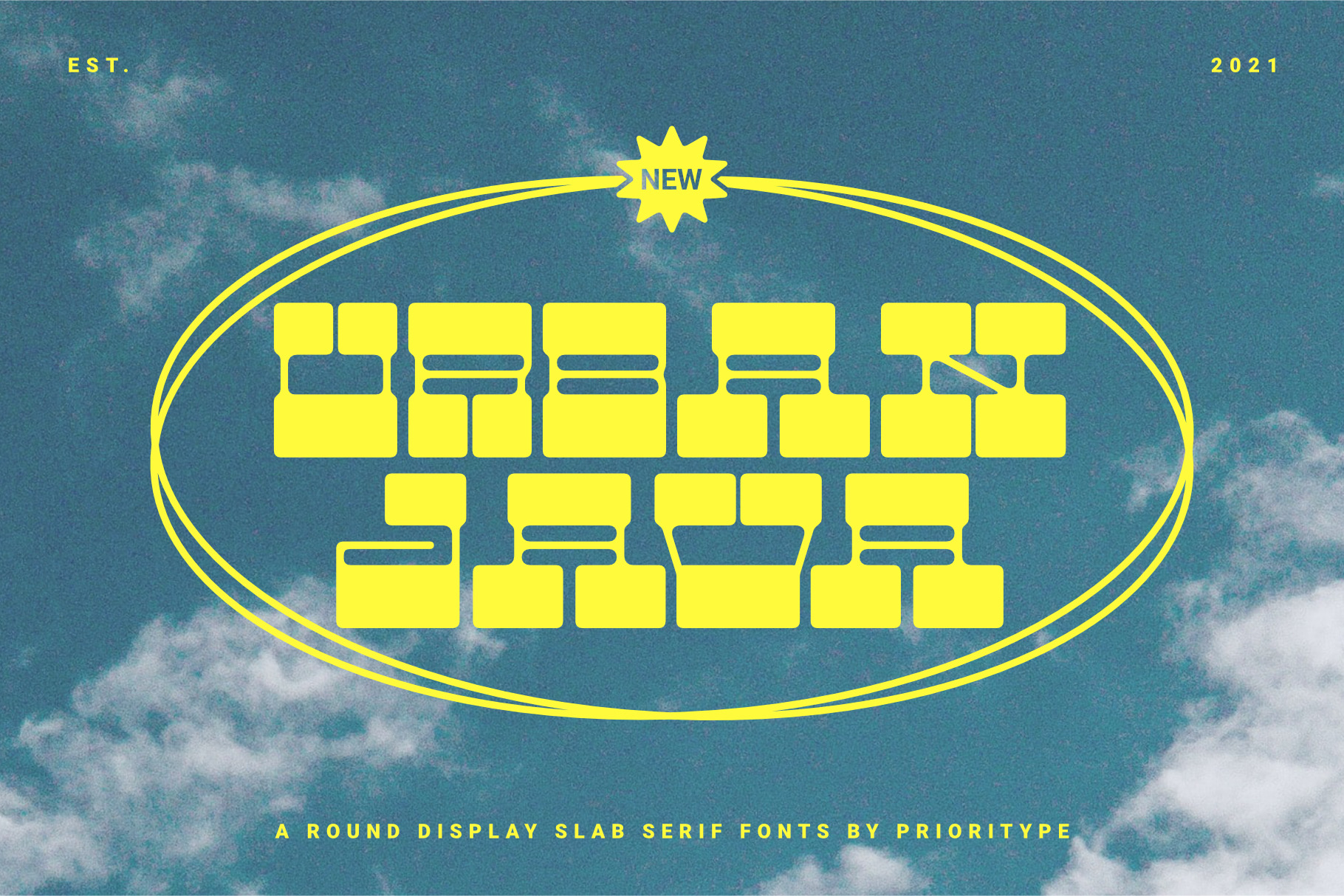
Urban Java Font
Urban Java - A Round Display Slab Serif Fonts.
Yes, let's toast to the amazing work for all of us. This typeface was formed to refresh a contemporary youth street design. Firm and soft impression can be spelled out.
It really looks good to be consumed by today's youth. Good for use in street designs such as t-shirts, posters, sticker, album or magazine covers and more.